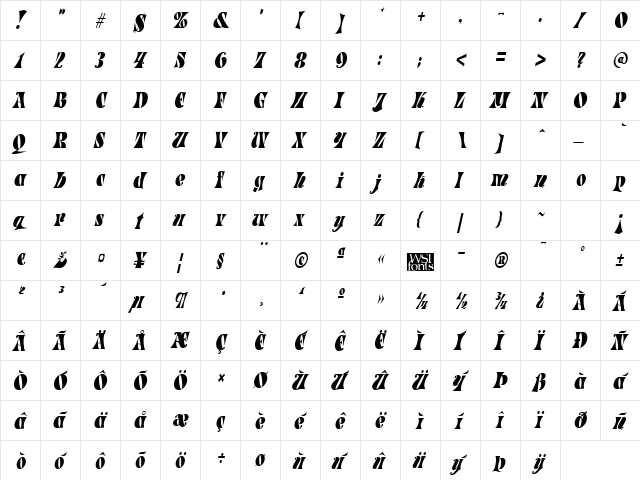
ParadeTight Italic
Design Context for ParadeTight Typeface
ParadeTight is a composed and adaptable typeface that performs quietly and consistently across a wide range of design contexts. The dynamic lean of this cut emphasises speed and emphasis in any layout.
Pro Tip: Try ParadeTight for annotation and caption copy alongside an upright companion — the contrast in angle creates a dynamic but ordered typographic system.